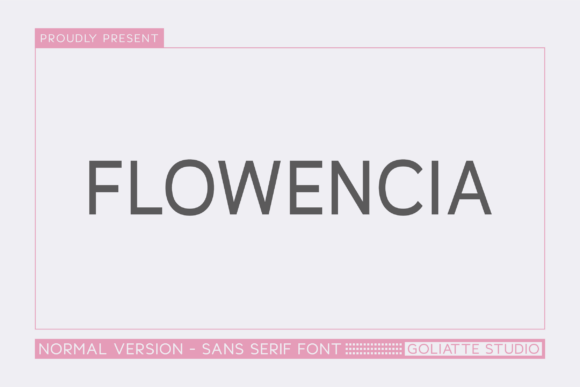
Introducing Flowencia – A Modern Sans Serif Typeface
Flowencia is a bold, all-caps sans serif font designed for the modern designer. With its clean lines and minimalist aesthetic, this typeface exudes strength and authority. It is perfect for projects that require a sense of professionalism and impact. Whether you’re designing a logo, website, or print material, Flowencia makes a statement with its sharp, crisp edges.
The Design Philosophy Behind Flowencia
The strong, geometric structure of Flowencia ensures versatility, from digital interfaces to high-end branding. The all-caps design emphasizes clarity and readability, making it ideal for headlines, posters, and anywhere you need your message to stand out.
Flowencia’s design is rooted in modernity and simplicity. The clean lines and minimalist aesthetic are not just visually appealing but also highly functional. This font is crafted to provide a sense of professionalism and impact, making it suitable for a wide range of design projects.
Key Features of Flowencia
- All-caps design for maximum impact
- Modern, minimalist style with a focus on readability
- Bold, clean lines for a confident and professional look
- Ideal for branding, logos, packaging, and digital design
- Perfect for both large-scale headlines and smaller text blocks
Who Benefits from Flowencia?
Flowencia is perfect for brands, agencies, and designers looking to create a modern, authoritative identity. It’s especially suitable for:
- Tech companies looking for a sleek and modern typeface
- Corporate branding projects that require a sense of professionalism and impact
- Luxury design projects where style and readability are paramount
Why Choose Flowencia?
Flowencia is built to make an impression. Its bold, all-caps design and clean lines ensure that your message stands out, whether you’re designing a logo, website, or print material. The font’s versatility and readability make it an excellent choice for a wide range of design projects.
With Flowencia, you can:
- Create a modern and authoritative brand identity
- Enhance your digital interfaces with a clean and professional typeface
- Make a lasting impression with your design projects
Flowencia is a powerful and versatile typeface that can elevate your design projects to the next level. Its modern, minimalist aesthetic and bold, all-caps design make it perfect for projects that require a sense of professionalism and impact. Whether you’re a brand, agency, or designer, Flowencia is an excellent choice for creating a modern, authoritative identity.
| Font Style | All-caps sans serif |
| Font Weight | Bold |
| Glyph Set | Extended |
- What is Flowencia?
- Flowencia is a bold, all-caps sans serif font designed for the modern designer.
- What is Flowencia suitable for?
- Flowencia is suitable for branding, logos, packaging, digital design, and print materials.